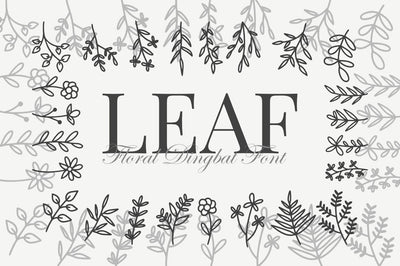
Leaf - A Floral Dingbat Font
Leaf is a unique and fresh dingbat font, a font with glyphs of leaf shapes. This font can be used for various purposes such as logo decoration, craft, mugs, t-shirts etc